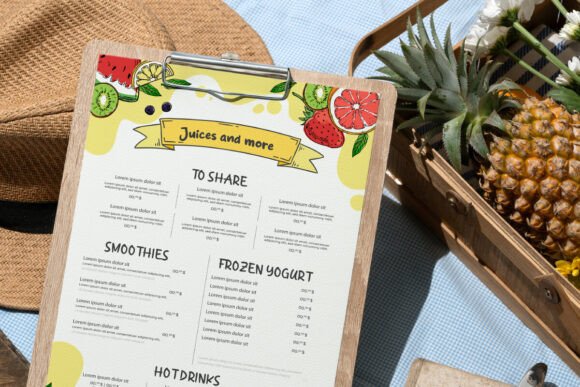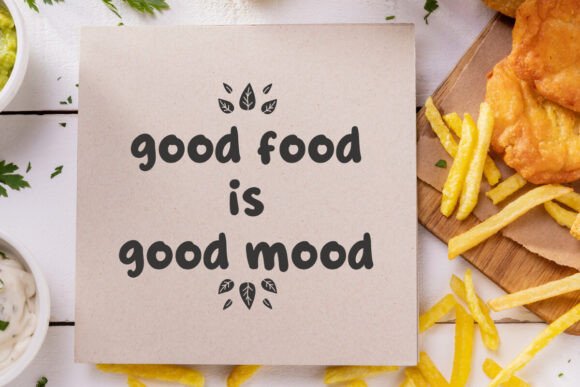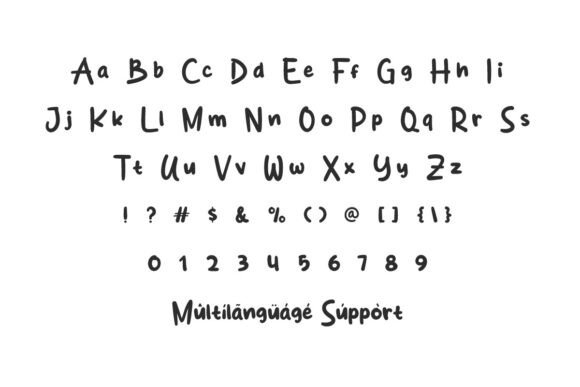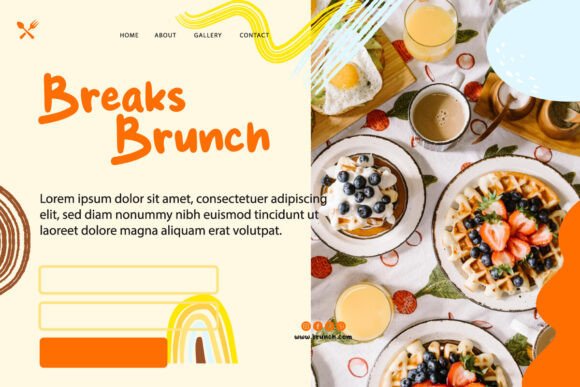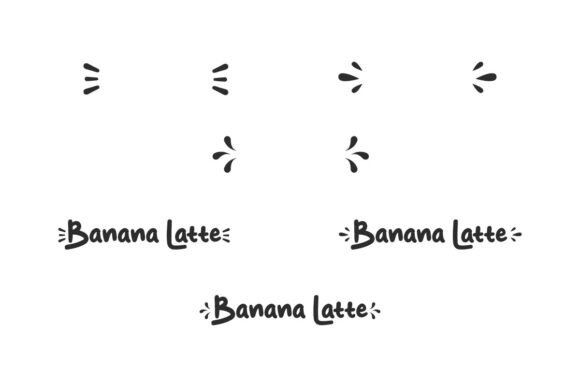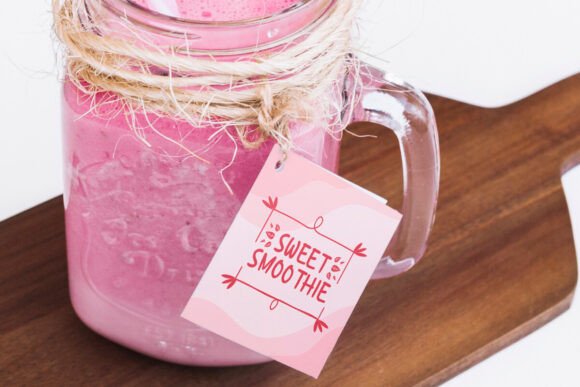
Unleash Your Creativity with the Perfect Font
Have you ever found yourself sitting in a cozy café, sipping on a delicious banana latte, and feeling inspired to create something new? The warmth and comfort of that moment often spark the most innovative ideas. For designers, finding the right font to match their vision can be just as pivotal. That’s where the Banana Latte Font comes in – a delightful, playful handwriting font designed to bring a smile to your audience’s faces.
With its bold and small letters, this font is perfect for adding a touch of whimsy to various designs, from brochures to product packaging. Its unique ornament characters take it to the next level, making it a valuable addition to any designer’s toolkit. Whether you’re looking to create a memorable brand identity or add a personal touch to your next project, the Banana Latte Font is sure to delight.
Banana Latte Font Key Features
- Unique Characteristics: The font features a distinctive, hand-drawn style with a warm and inviting tone, perfect for creating a cozy and welcoming atmosphere in designs.
- Kerning and Ligatures: The font includes advanced kerning and ligature pairs, ensuring smooth and even spacing between letters, and enhancing overall text readability.
Review: Banana Latte Font
Overall, I think the Banana Latte Font is a cute and playful addition to any design project. It works well in✨:
- Titles and headings – The font’s whimsical nature makes it perfect for adding a touch of personality to your headings.
- Body text – While it may not be the best choice for large blocks of text, Banana Latte works well in smaller amounts, adding a fun touch to your content.
- Emphasis – The font’s bold and colorful nature makes it great for drawing attention to important information.
However, there are some limitations to consider⚠️:
- Readability – While the font is cute, it can be difficult to read in certain situations, particularly in small sizes or when used for large amounts of text.
- Consistency – The font’s irregularities can make it challenging to maintain consistency throughout a design project.
In conclusion, the Banana Latte Font is a great choice for designers looking to add a touch of whimsy to their projects. While it may not be suitable for every situation, it’s a fun and versatile font that can add a lot of personality to your designs.
Use the Banana Latte Font for creative and playful projects, such as:
1. Social media graphics and advertisements.
2. Food and beverage branding.
3. Children’s book illustrations.
4. DIY crafts and invitations.
Remember to experiment with different font sizes, styles, and effects to get the most out of the Banana Latte Font.